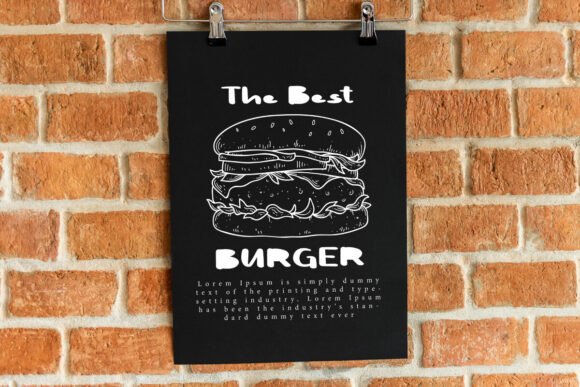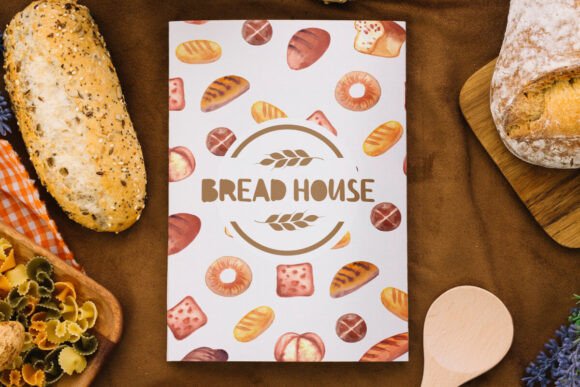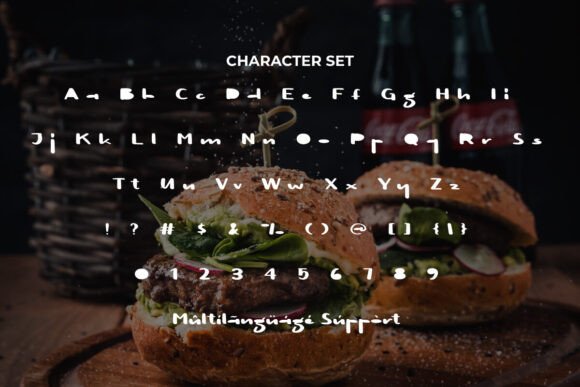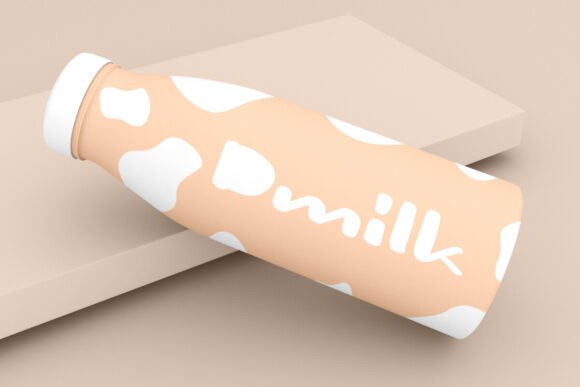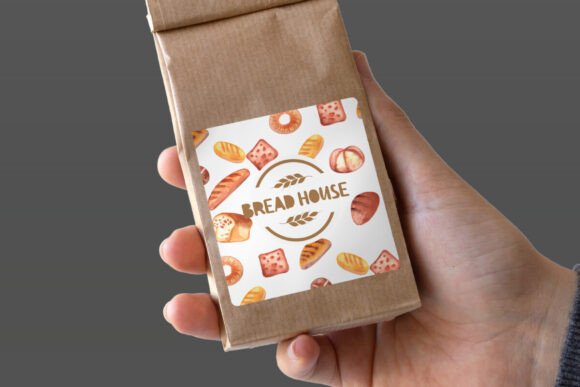
Burger Mayonnaise Font: The Creamy Twist Your Design Needs
Are you a designer or crafter looking for a unique font to elevate your creative projects? Look no further than the Burger Mayonnaise Font! This delightful font is inspired by the creamy texture of mayonnaise and brings a playful twist to your designs. In this article, we’ll dive into the features and benefits of the Burger Mayonnaise Font and explore how it can enhance your brand image, marketing materials, and more.
What is Burger Mayonnaise Font?
Burger Mayonnaise Font is a carefully crafted typeface that draws inspiration from the smooth and creamy texture of mayonnaise. The font comes with a full set of uppercase and lowercase basic characters, numbers, punctuation, and symbols, making it a versatile choice for a wide range of design applications.
Unique Features of Burger Mayonnaise Font
One of the standout features of Burger Mayonnaise Font is its distinctive design element: every letter with a hole in it is closed, giving the font a unique and quirky charm. Despite this creative twist, the font remains easy to read, making it perfect for use in various design projects, from branding and advertising to packaging and digital media.
Use Cases for Burger Mayonnaise Font
The Burger Mayonnaise Font is incredibly versatile and can be used to complement a wide range of projects, including:
- Brand image: Establish a strong brand identity with a custom font that reflects your personality and style.
- Cover design: Create eye-catching book covers, album art, or DVD covers that grab attention.
- Custom design: Add a personal touch to your designs with a unique font that sets you apart.
- Flyers and brochures: Create engaging promotional materials that showcase your products or services.
- Headers and titles: Elevate your website, blog, or social media graphics with a bold and playful font.
- Invitations and greeting cards: Add a touch of whimsy to your invitations and cards.
- Labels and packaging: Stand out on store shelves with custom labels and packaging that feature a unique font.
- Menus and restaurant branding: Create a memorable dining experience with a custom font that reflects your restaurant’s personality.
- Posters and prints: Design striking posters, prints, and artwork that showcase your creativity.
- Product packaging: Add a personal touch to your product packaging and make it more recognizable.
- Quotes and typography art: Create stunning typography art pieces that feature inspiring quotes.
- Screen prints and signage: Design eye-catching screen prints and signage that grab attention.
- Stationery and letterheads: Elevate your business correspondence with a custom font that reflects your brand.
- Stickers and decals: Create fun and playful stickers and decals that feature a unique font.
- Watermarks and photography: Add a touch of elegance to your photos with a custom watermark font.
- Websites and blogs: Enhance your online presence with a custom font that reflects your brand’s personality.
Benefits of Using Burger Mayonnaise Font
The Burger Mayonnaise Font offers several benefits to designers and crafters, including:
- Unique branding: Stand out from the competition with a custom font that reflects your brand’s personality.
- Ease of use: The font is easy to read and can be used in a wide range of design applications.
- Versatility: The font comes with a full set of characters, numbers, punctuation, and symbols, making it a versatile choice for various design projects.
- Creativity boost: The Burger Mayonnaise Font’s unique design elements can inspire creativity and add a playful touch to your designs.
In conclusion, the Burger Mayonnaise Font is a unique and versatile typeface that can elevate your design projects and add a touch of personality to your brand image, marketing materials, and more. With its distinctive design elements, ease of use, and versatility, this font is perfect for designers and crafters looking to stand out from the competition. So why not give it a try and see how the Burger Mayonnaise Font can enhance your creative projects?